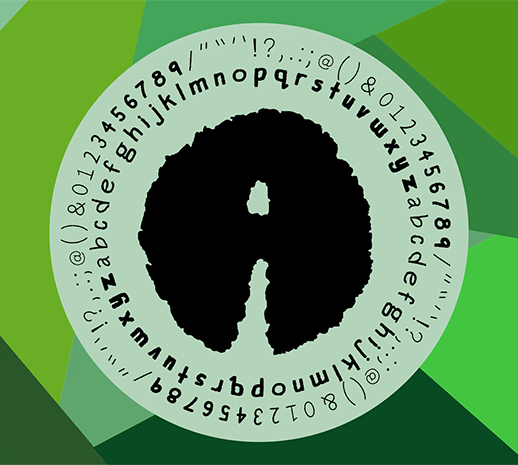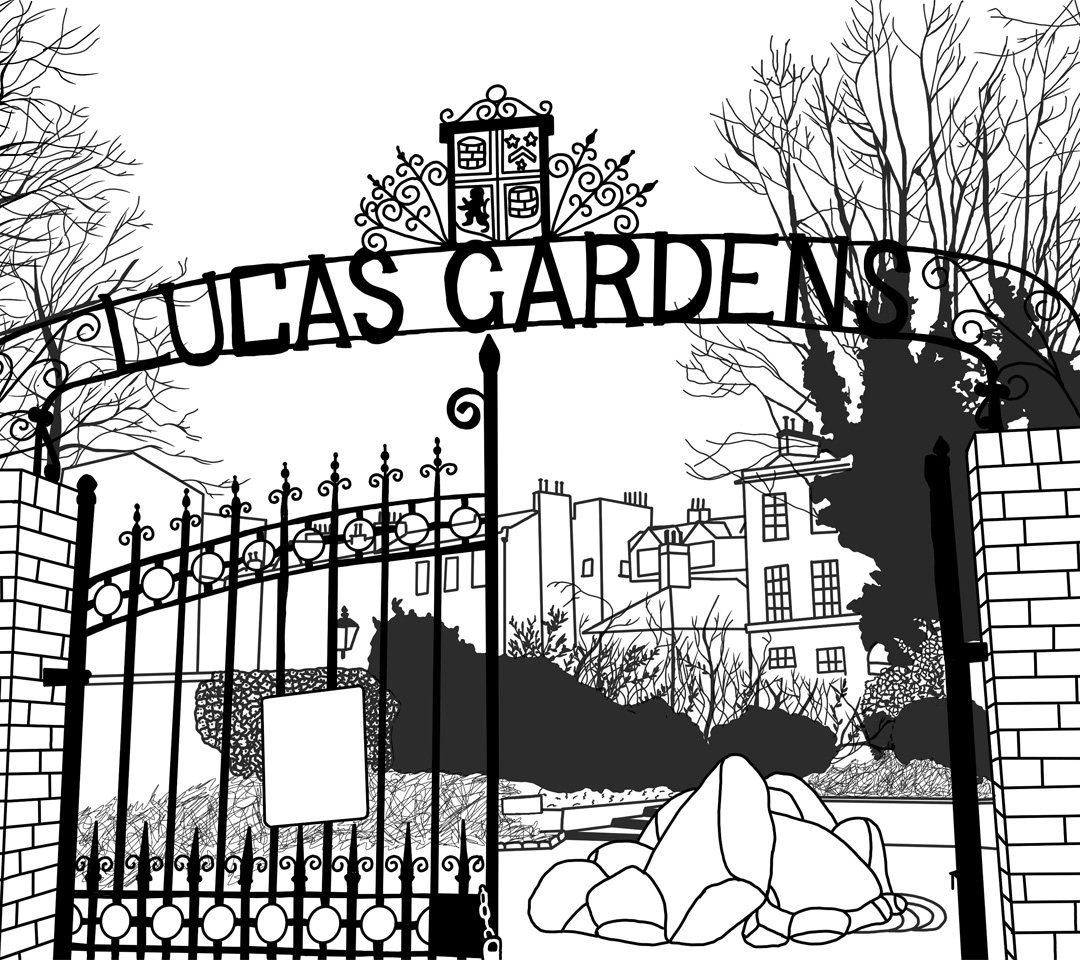
Jahresringe is a bold display typeface based around tree rings. It is inspired by the interaction between humans and nature and showcases how they can thrive alongside each other without destroying one another. It features a bold uppercase which is designed to represent a tree stump. The lowercase and symbols are different thicknesses to illustrate the different rings within the tree and showcase the impact that humans have on their environment. The detailed texture makes it best used in large sizes, for titles and catching attention.